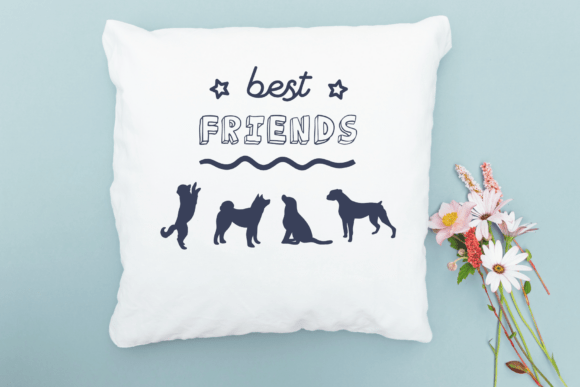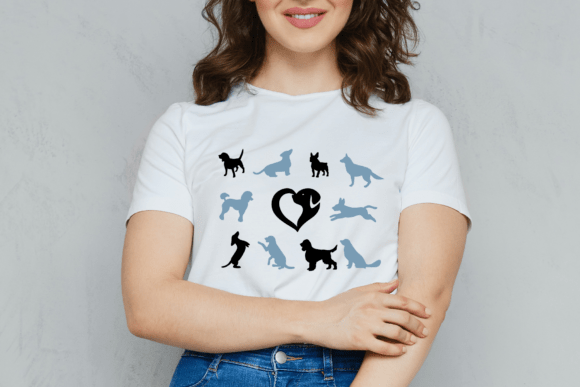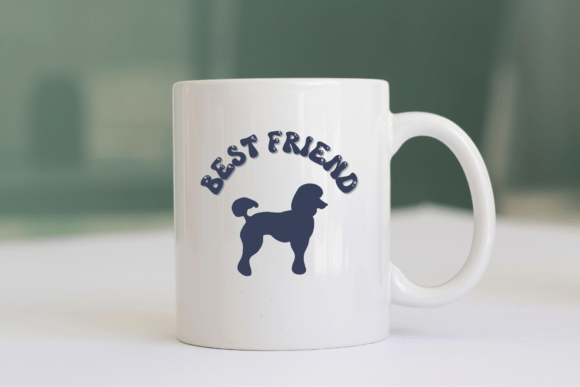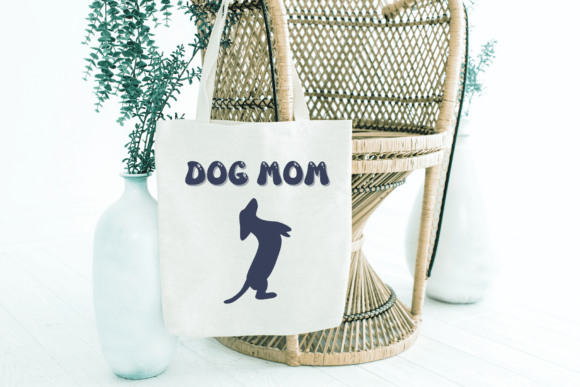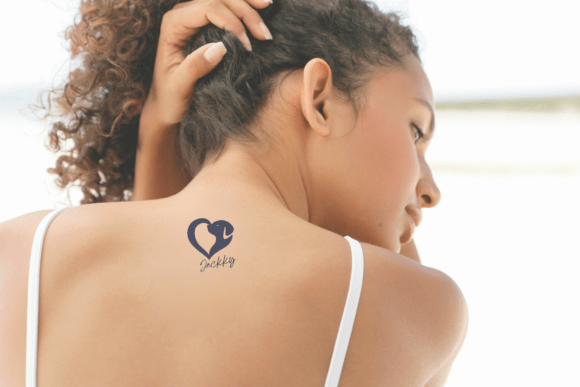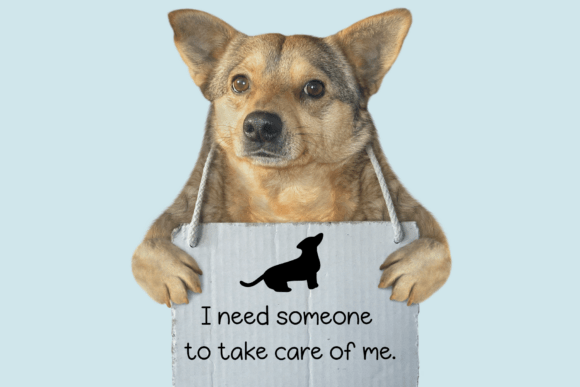
Unleash Your Creativity with Dog Silhouettes Font and Doodles
Are you a designer, crafter, or pet lover looking for a fun and versatile way to add a personal touch to your projects? Look no further than Dog Silhouettes Doodles, a playful collection of hand-drawn dog shapes and pet-themed icons. This exciting pack features a wide variety of breeds and poses, from sitting pups to jumping dogs, making it perfect for pet brands, logo design, vinyl crafts, children’s books, and cute packaging.
What is Dog Silhouettes Font?
Dog Silhouettes Font is a unique and creative way to add dog-themed elements to your designs. The font includes a range of hand-drawn dog silhouettes, each carefully crafted to capture the unique characteristics of different breeds. From sleek and slender to playful and pudgy, the dogs in this font are sure to delight pet lovers of all ages.
Exploring the Dog Silhouettes Doodles Pack
The Dog Silhouettes Doodles pack is a treasure trove of creative possibilities. With a wide range of dog breeds and poses to choose from, you can pick the perfect illustration to match your brand or project theme. The pack includes:
- A variety of dog breeds, from popular favorites like Labradors and German Shepherds to more unusual breeds like Pugs and Chihuahuas
- Dogs in different poses, including sitting, standing, jumping, and running
- Fun extras like paw prints, bones, and heart-shaped dog icons
- Hand-drawn illustrations, carefully crafted to ensure a playful and charming feel
Using Dog Silhouettes Font and Doodles in Your Designs
The versatility of Dog Silhouettes Font and Doodles makes them perfect for a wide range of projects, including:
- Pet Brands: Use the dog silhouettes to create custom logos, packaging, or advertising materials that will delight pet owners and animal lovers.
- Logo Design: Add a personal touch to your logo with a custom dog silhouette that reflects your brand’s personality and style.
- Vinyl Crafts: Cut out the dog silhouettes to create custom vinyl decals, stickers, or signs for your home or business.
- Children’s Books: Illustrate your children’s book with adorable dog characters that will captivate young readers and inspire their imagination.
- Cute Packaging: Add a playful touch to your product packaging with custom dog-themed labels, stickers, or inserts.
Benefits of Using Dog Silhouettes Font and Doodles
By incorporating Dog Silhouettes Font and Doodles into your designs, you can enjoy a range of benefits, including:
- Unique and Eye-Catching Designs: Stand out from the crowd with custom dog-themed illustrations that will capture the hearts of pet lovers and animal enthusiasts.
- Time-Saving: With a wide range of pre-drawn dog silhouettes and icons, you can save time and effort in your design process.
- Scalability: The dog silhouettes are designed to be scalable, ensuring that they remain crisp and clear even at large sizes.
- Easy to Use: The Dog Silhouettes Font and Doodles are easy to use, even for designers and crafters with limited experience.
Dog Silhouettes Font and Doodles are a fun and versatile way to add a personal touch to your designs. With a wide range of hand-drawn dog shapes and pet-themed icons, this pack is perfect for pet brands, logo design, vinyl crafts, children’s books, and cute packaging. Whether you’re a designer, crafter, or pet lover, this exciting collection is sure to inspire your creativity and bring a smile to your face.